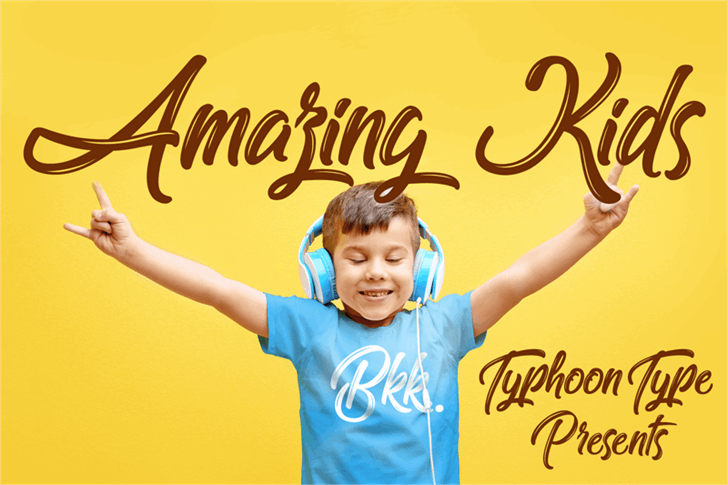
Amazing Kids Font
Hi there! Introducing Amazing Kids. It is designed by Typhoon Type – Suthi Srisopha. Amazing Kids Font is a handwritten script typeface. It is suitable for any design needs, branding, cover title, t-shirts, posters and more.